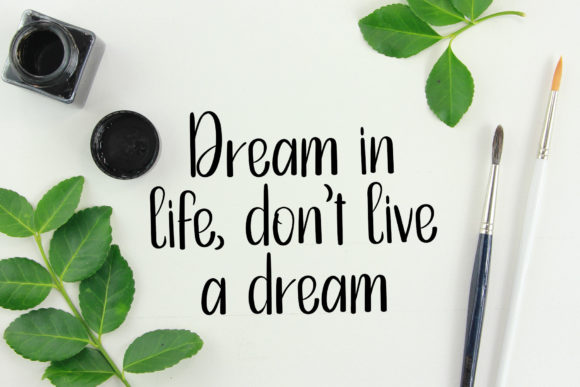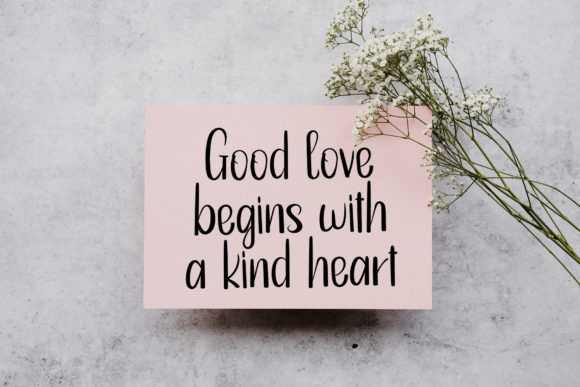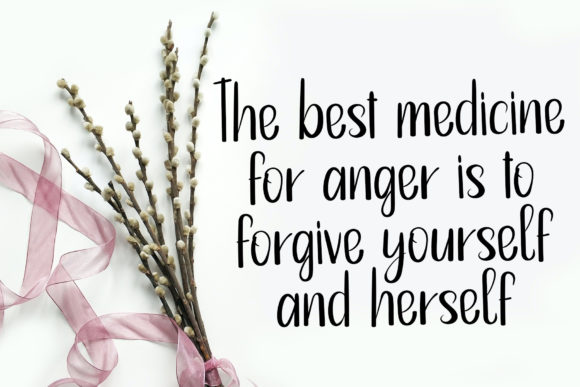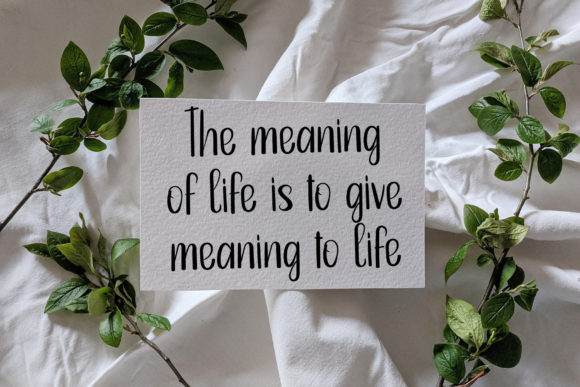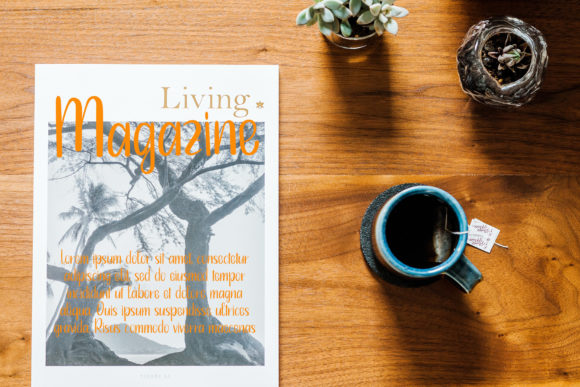
Stay Wonderful Font
About Stay Wonderful Font
Introducing Stay Wonderful, a stylish and elegant script font that exudes sophistication and beauty. With its stunning design, Stay Wonderful is the perfect choice for wedding invitations, thank you cards, quotes, greeting cards, logos, business cards, and any other design that requires a customized touch.
Stay Wonderful’s stylish and elegant script design sets it apart as a font that captures attention and adds a touch of refinement to your projects. Each letter is meticulously crafted with flowing lines and graceful curves, creating a visually appealing composition. This level of detail and elegance adds a sense of sophistication and beauty to your designs, making them stand out.
The versatility of Stay Wonderful allows it to shine in various design contexts. Whether you’re working on wedding stationery, branding projects, social media graphics, or any other creative endeavor, Stay Wonderful adds a touch of style and elegance. Its script nature creates a visually captivating and elegant aesthetic that enhances the overall visual appeal.
Stay Wonderful’s stunning design makes it the perfect choice for personalized touch in your designs. The carefully crafted letterforms and graceful connections create a sense of beauty and refinement. Whether used for special occasions, professional branding, or creative projects, Stay Wonderful adds a touch of elegance and elevates the overall aesthetic.
Stay Wonderful is particularly well-suited for wedding invitations, thank you cards, quotes, and greeting cards. Its stylish and elegant appearance brings a sense of romance and sophistication to these special moments. With Stay Wonderful, you can create designs that reflect the beauty and uniqueness of these occasions.
In summary, Stay Wonderful is a stylish and elegant script font that adds sophistication and beauty to your projects. Its meticulously crafted design captures attention and adds refinement to your compositions. Embrace Stay Wonderful’s versatility and let it enhance the beauty and elegance of your designs, creating visually stunning compositions that leave a lasting impression.